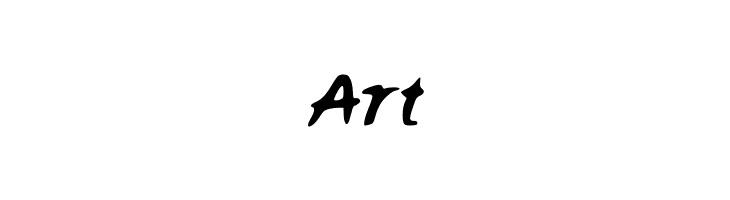
( Fonts by bob istheowl http://luc.devroye.org/bobistheowl.html )
A decorative font with intricate cat and bat illustrations within each character.
A playful, hand-drawn font with bold, irregular strokes and a cartoonish style.
( Fonts by Typodermic Fonts )
A playful, informal handwritten font with irregular strokes and a casual appearance.
( Fonts by Geronimo )
A festive, knitted-style font perfect for holiday-themed designs.
A decorative font with intricate glyph-like embellishments and a mystical aesthetic.